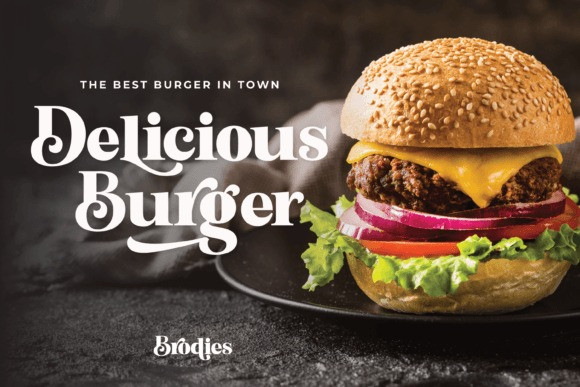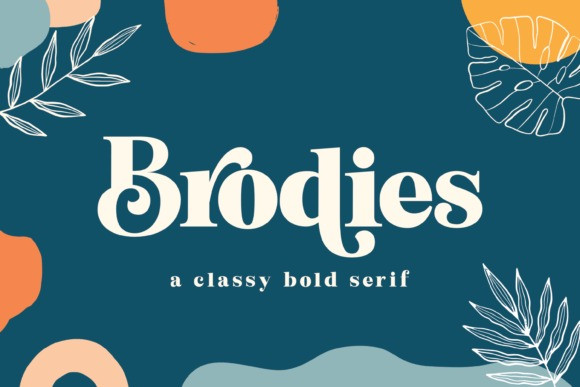
Brodies Font
Brodies Font is a modern display font with a bright positive character. Clean forms and a bit of curly letter ends create a friendly mood in any design.
Brodiesfont is perfect for headlines, magazines, logotypes, food packages, advertising, and many others